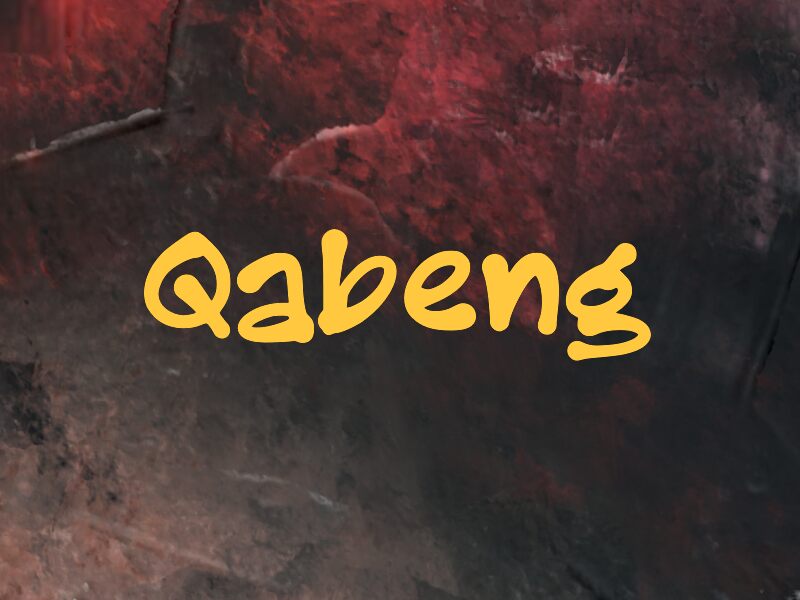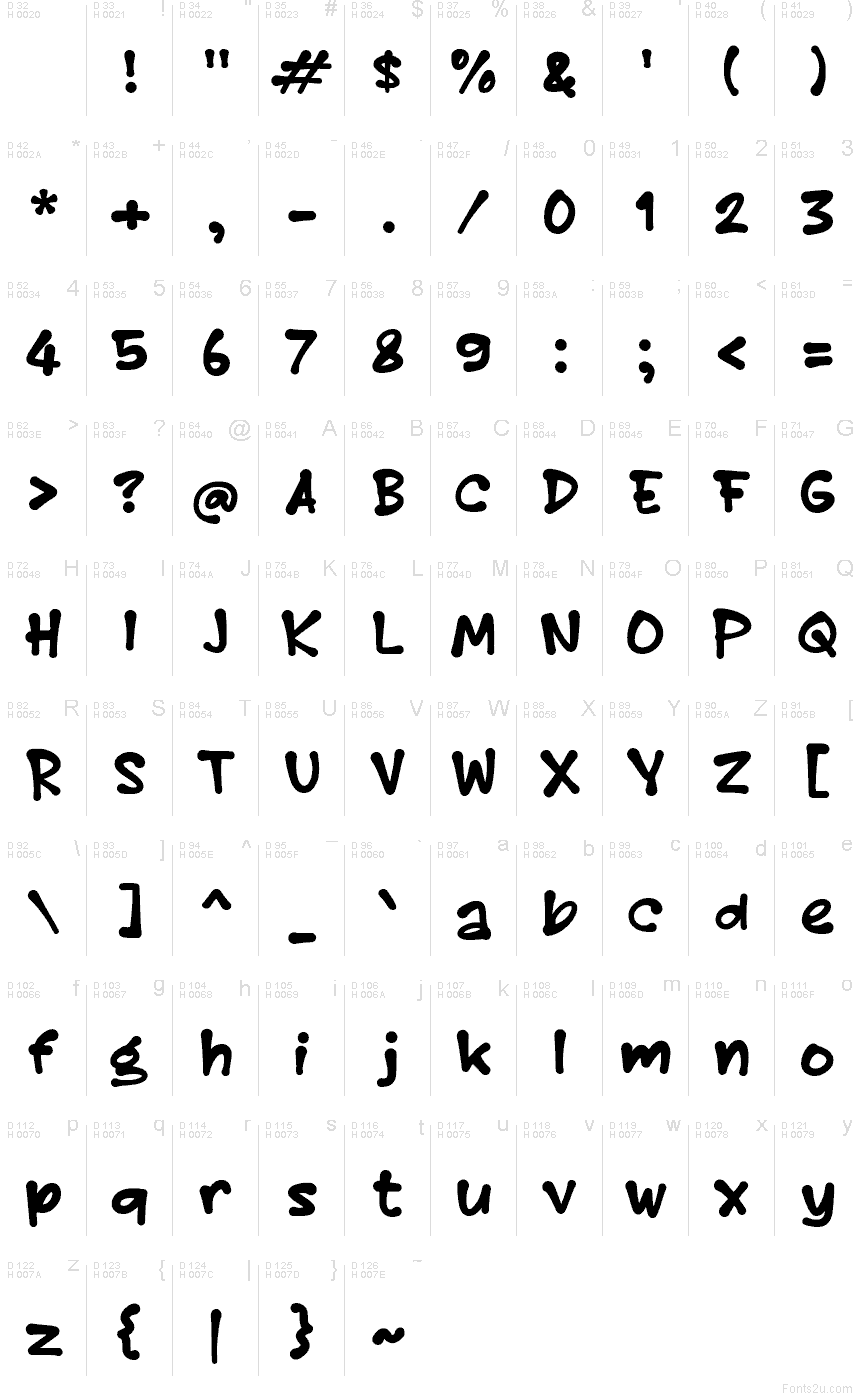
Qabeng
Qabeng font by wep is a free cartoon display typeface with thick, inky strokes and a loose, hand-drawn swagger. Letters wobble and bounce as if sketched with a fat marker, giving every word a lively, slightly mischievous energy. The rounded curves and soft edges feel friendly and approachable, like doodles pulled straight from a sketchbook.
Using Qabeng, headlines instantly grab attention on kids’ posters, comic covers, playful logos, game titles, stickers, and YouTube thumbnails. This free font shines when set large, letting its chunky shapes and irregular rhythm do the talking. For body text, pair Qabeng with a clean, simple sans serif to keep layouts readable while the main titles stay bold and fun.